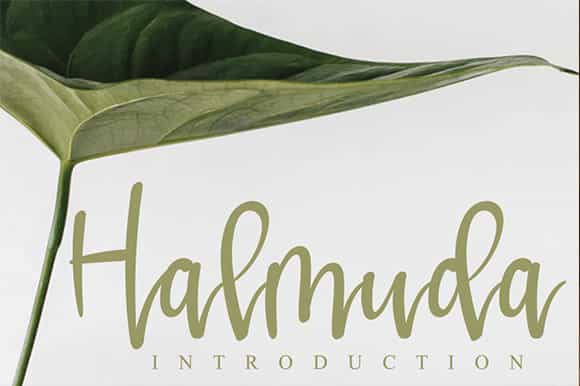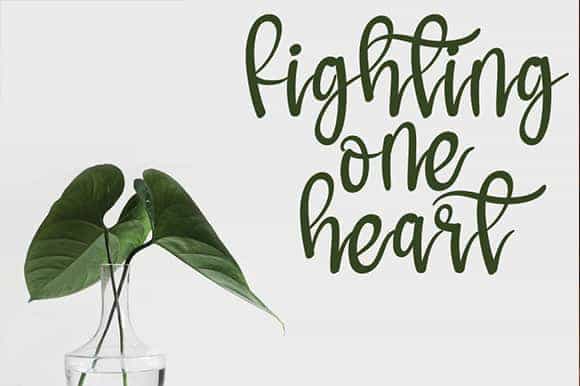
Discover Halmuda Script Font, part of the Calligraphy Handwritten collection—a versatile and unique font perfect for adding a personal touch to your projects. Download it for free and enjoy crafting designs with style, from invitations to social media posts. This font is available exclusively for personal use, giving you the freedom to create without limits. Unlock your creativity with Halmuda Script Font today!
The Halmuda Font is perfect for, advertising, wedding invitations, logos for social networks, ads, packaging, designs, labels, photos, watermarks, invitations, stationery and any other handwritten projects.